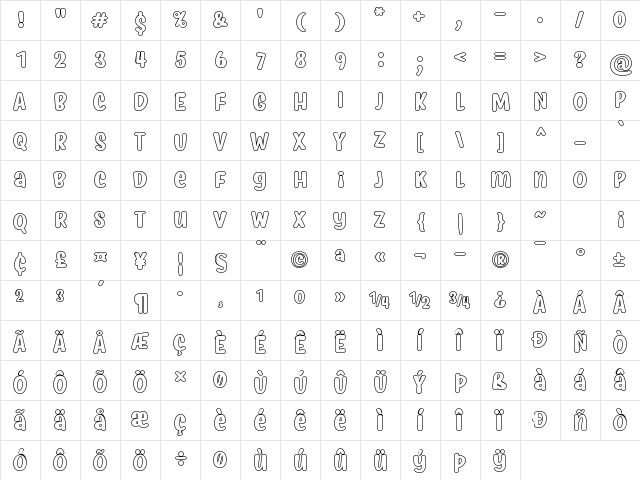
Myfrida Hollow Regular
Design Context for Myfrida Hollow Typeface
Myfrida Hollow is a composed and adaptable typeface that performs quietly and consistently across a wide range of design contexts.
Pro Tip: Use Myfrida Hollow in both headline and body roles to test its range before committing to a single application.